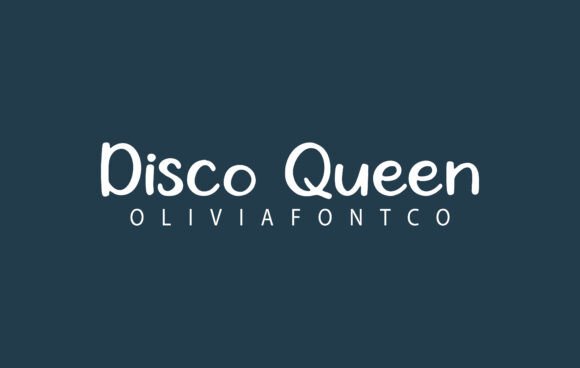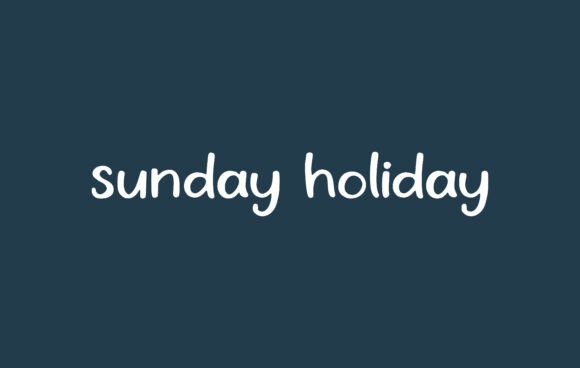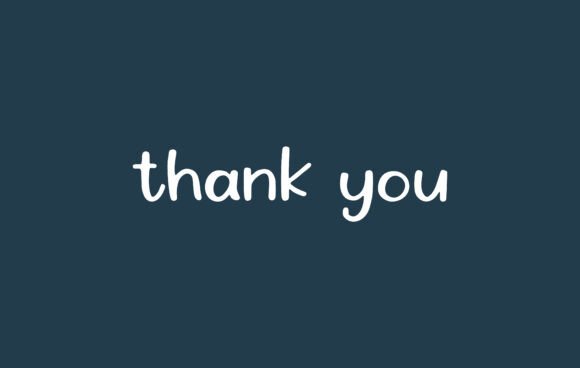
Disco Queen Font: A Cute Handwritten Font for Branding!
About the Disco Queen Font
Meet Disco Queen Font, a stunning font that brings a touch of elegance and professionalism to any design. Disco Queen font is an authentic handwritten font with a romantic touch. Expertly designed to be a true favorite, this font has the potential to take your creative ideas to the highest level
Disco Queen excels in applications requiring a touch of romantic boldness, such as headlines, short text blocks on invitations or packaging, and social media graphics. Its handwritten nature makes it less suitable for large amounts of body text or UI elements where high legibility is paramount. Avoid using it for long paragraphs or dense text.
The font’s core personality is best described as romantic yet bold. It conveys a sense of fun and energy without sacrificing elegance.
Pairing Disco Queen with a clean sans-serif like Montserrat or a classic serif like Garamond creates effective contrast and visual balance. For a more playful feel, consider pairing it with a slightly quirky script font.
Disco Queen Font Usage Examples
Disco Queen Font Example